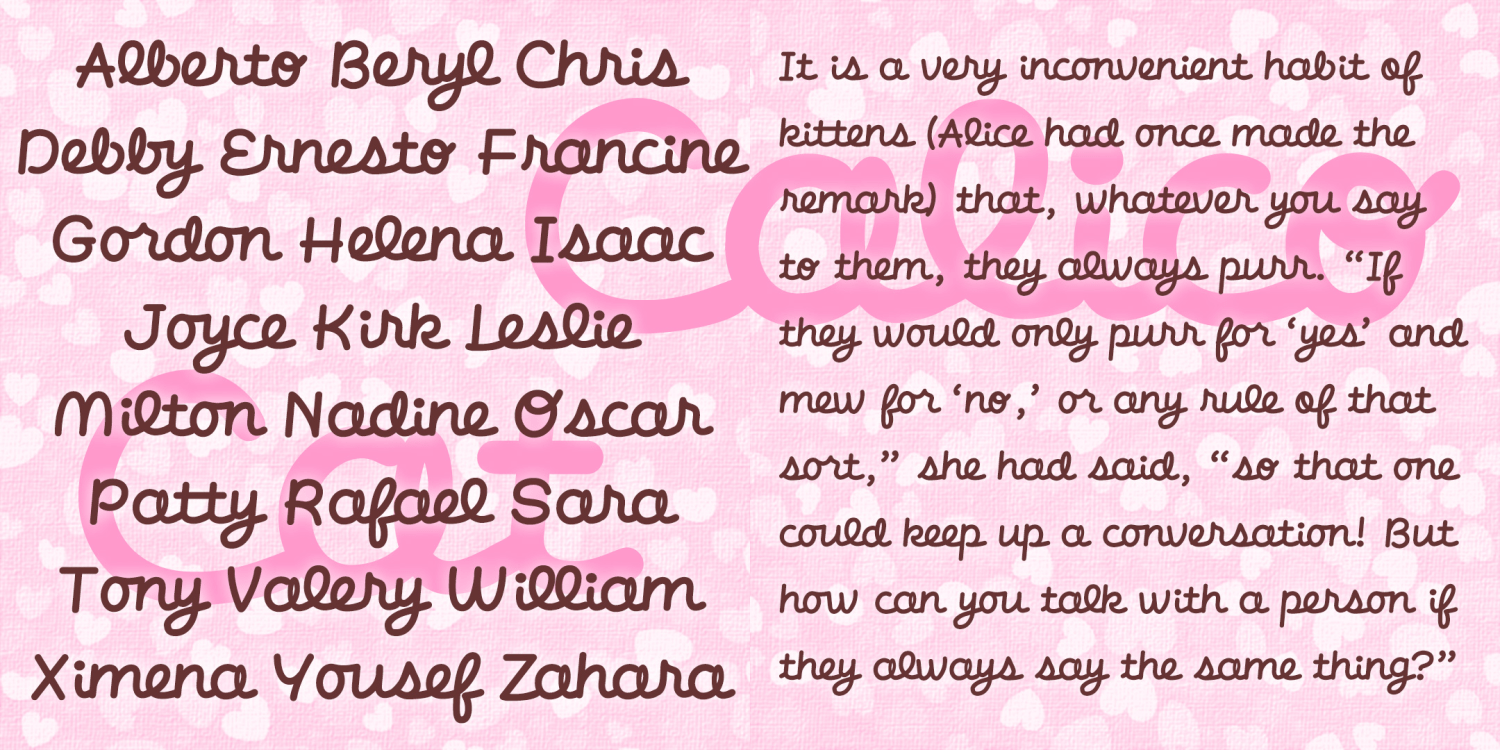
Calico Cat
Calico Cat is a whimsical script font. It's like a young girl's playful but but earnest cursive handwriting. Special letter forms are included as ligatures, automatically creating nicely linked script. Calico Cat was inspired by one of the various Hello Kitty logos.